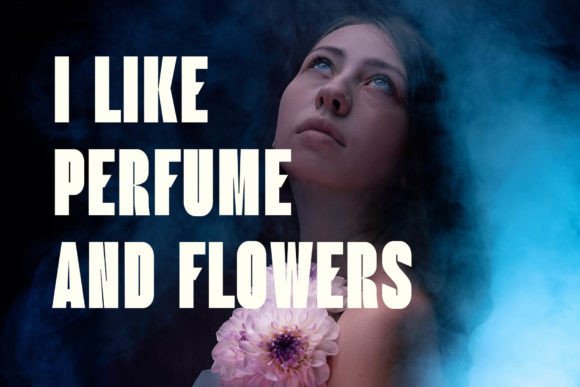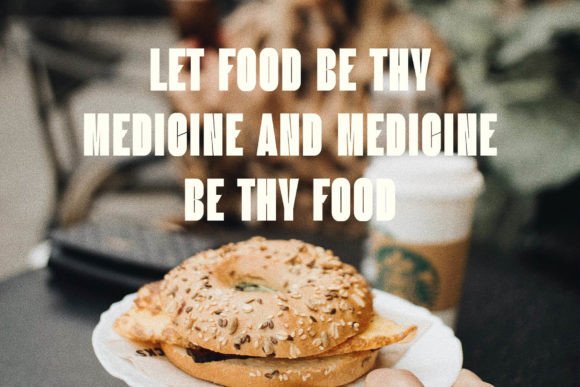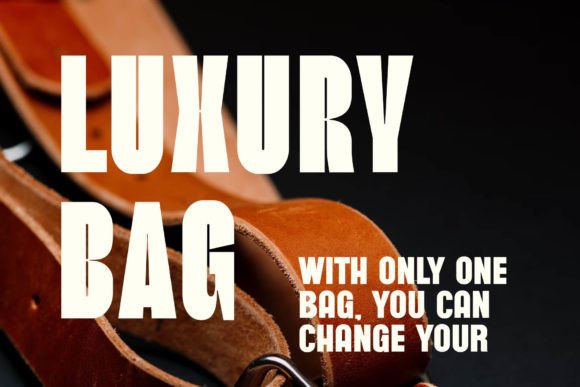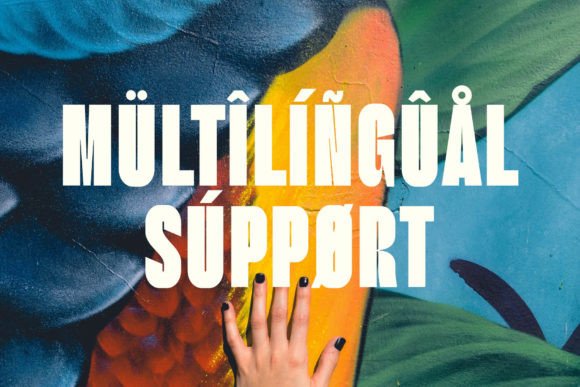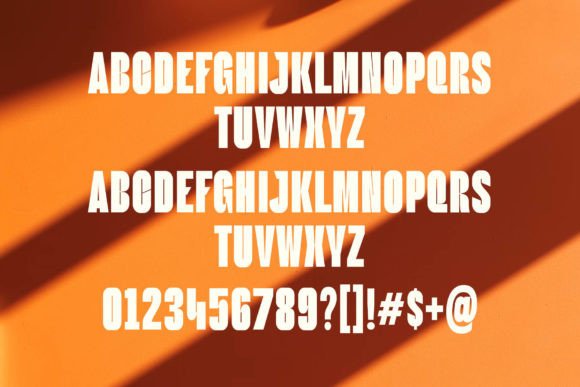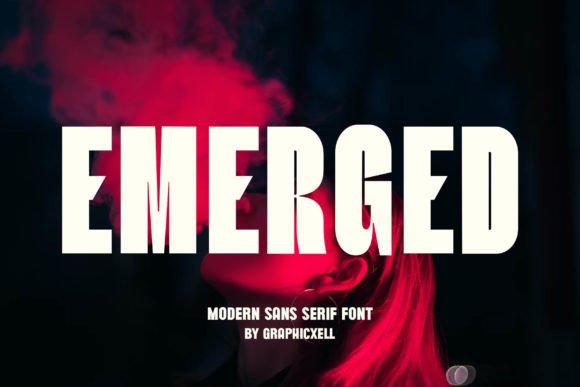
Emerged Font: The Minimalist Choice for Designers and Crafters
In the world of design, fonts play a crucial role in conveying messages and creating visual identities. For designers and crafters looking for a clean and minimalist aesthetic, the Emerged Font is an excellent choice. Inspired by the famous minimalist logo, Emerged is perfect for designing templates, brochures, videos, advertising branding, logos, invitations, layout designs, elegant crafting, beauty designs, and more.
The Origins of Emerged Font
The Emerged Font draws inspiration from the minimalist logo design movement, which emphasizes simplicity and clean lines. This font is designed to be versatile and adaptable, making it suitable for a wide range of design applications. Whether you’re creating a logo, brochure, or social media graphic, Emerged Font provides a sleek and sophisticated look that’s sure to impress.
Key Features of Emerged Font
- Clean and Minimalist Design: Emerged Font boasts a clean and minimalist design, making it perfect for designers who want to create simple yet elegant designs.
- Versatility: This font is highly versatile and can be used for a variety of design applications, including logos, brochures, videos, and more.
- Elegant and Sophisticated: Emerged Font adds an touch of elegance and sophistication to any design, making it ideal for beauty designs, elegant crafting, and high-end branding.
Design Applications for Emerged Font
Emerged Font is perfect for a wide range of design applications, including:
- Logo Design: Create a professional and memorable logo with Emerged Font.
- Brochure Design: Use Emerged Font to create clean and elegant brochures that showcase your products or services.
- Video Design: Add a touch of sophistication to your video designs with Emerged Font.
- Advertising Branding: Create eye-catching ads with Emerged Font that reflect your brand’s personality.
- Invitation Design: Design elegant and sophisticated invitations with Emerged Font.
- Layout Design: Use Emerged Font to create clean and organized layouts for your designs.
- Elegant Crafting: Add a touch of elegance to your crafting projects with Emerged Font.
- Beauty Designs: Create stunning beauty designs with Emerged Font that exude elegance and sophistication.
Why Choose Emerged Font?
There are many reasons why designers and crafters choose Emerged Font for their design projects. Here are a few:
- Unique and Professional Look: Emerged Font provides a unique and professional look that’s sure to impress your clients or audience.
- Ease of Use: This font is easy to use and pairs well with a variety of other fonts, making it perfect for designers of all skill levels.
- High-Quality Design: Emerged Font is designed with high-quality in mind, ensuring that your designs look crisp and clean.